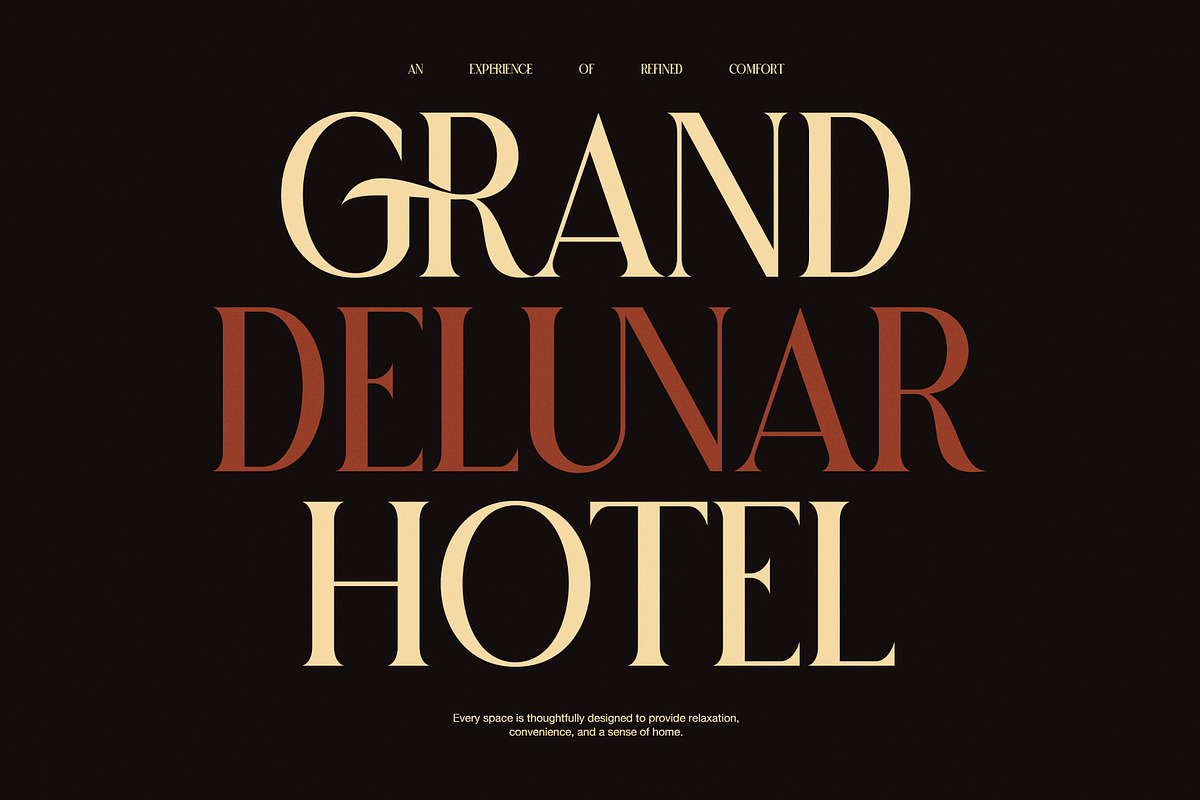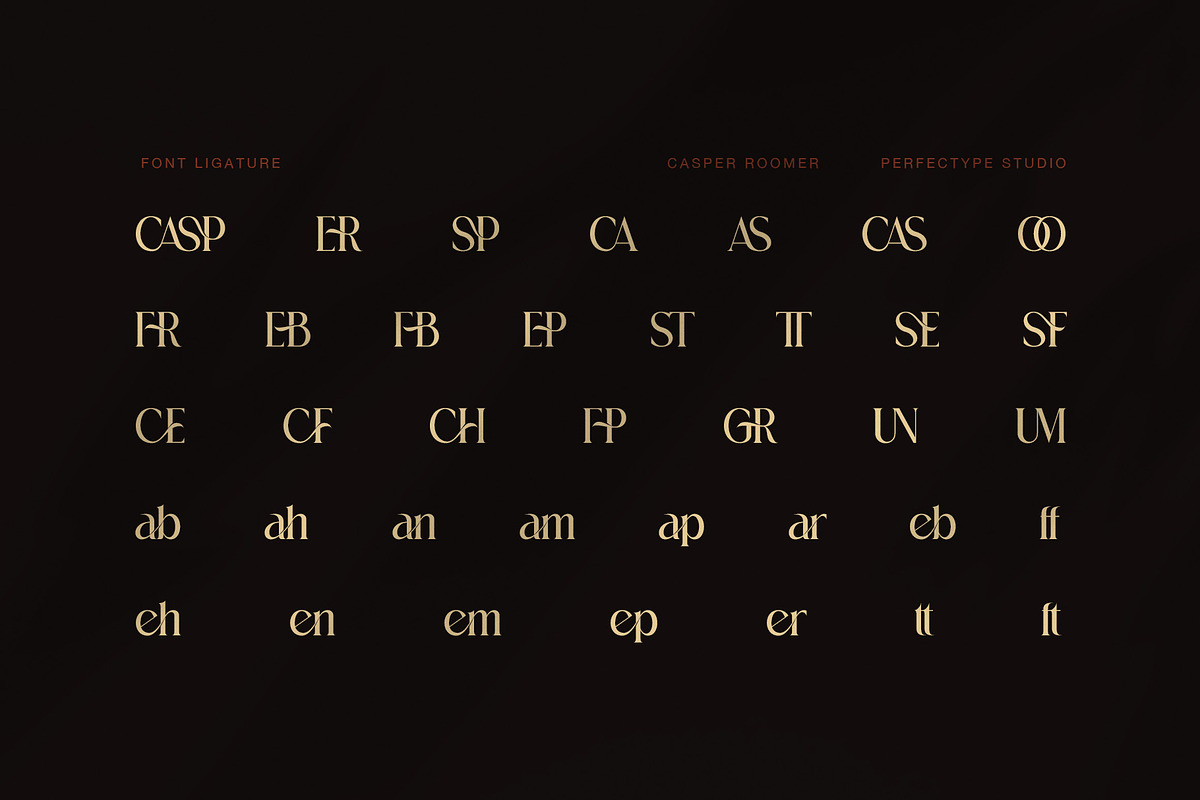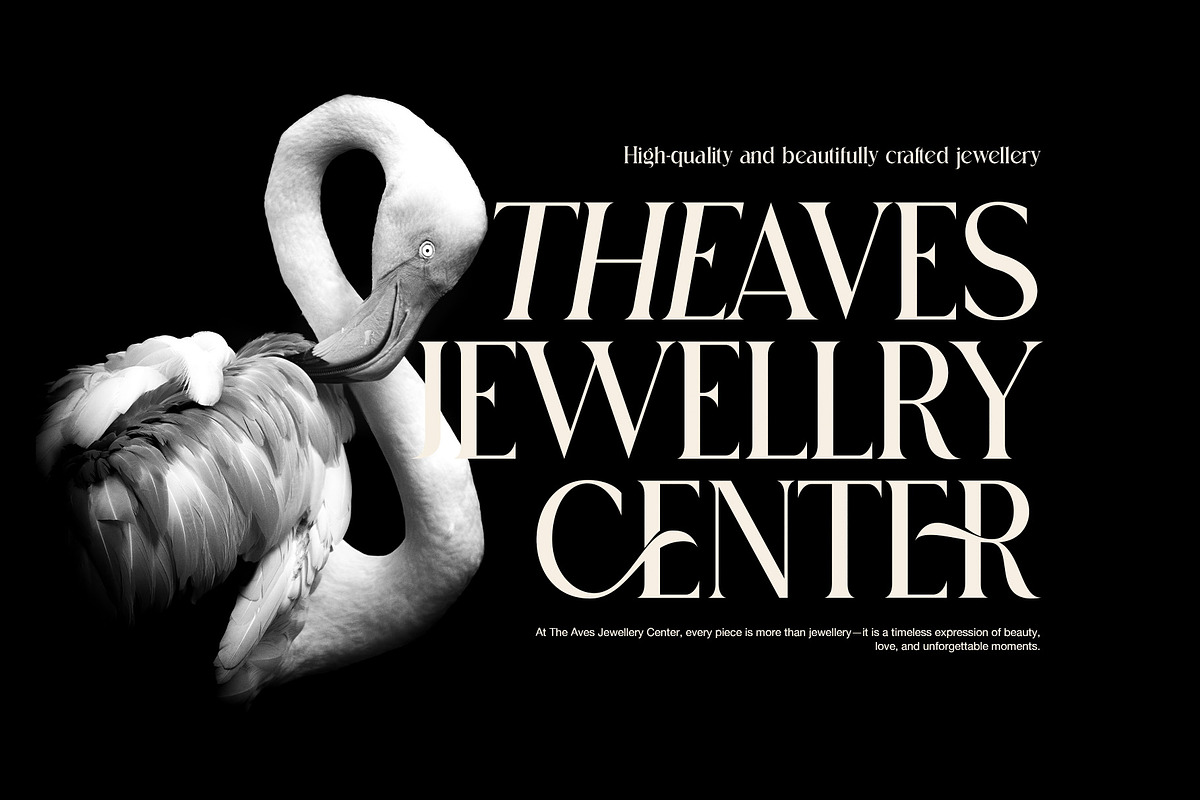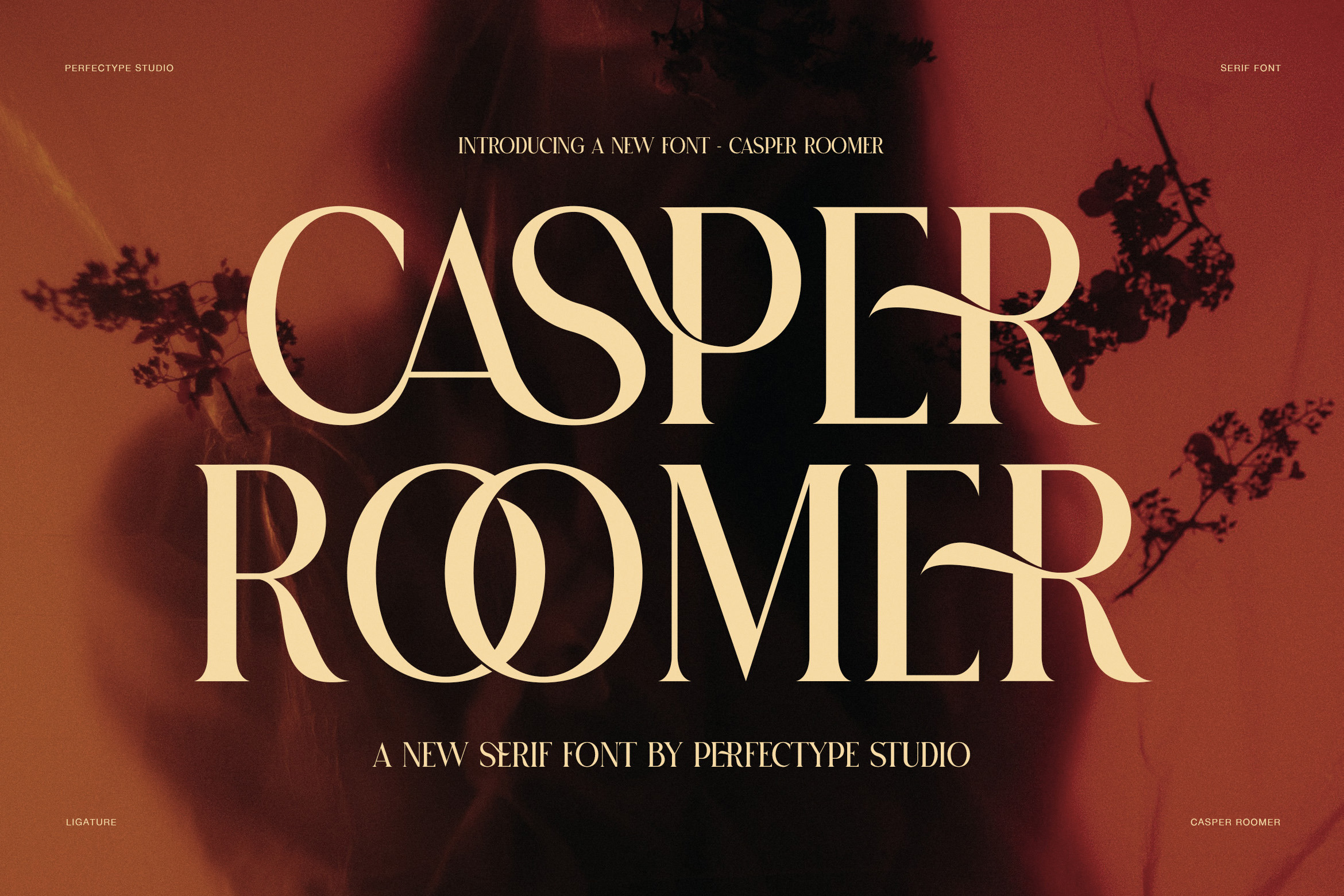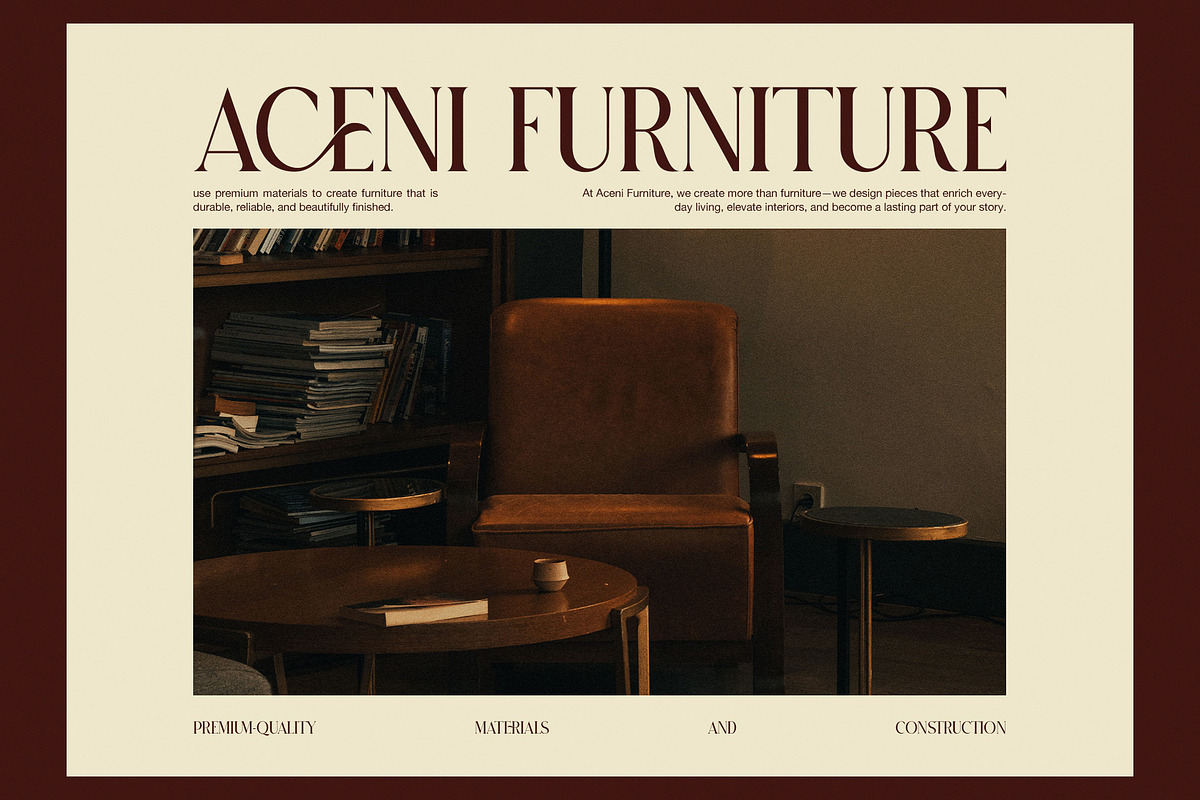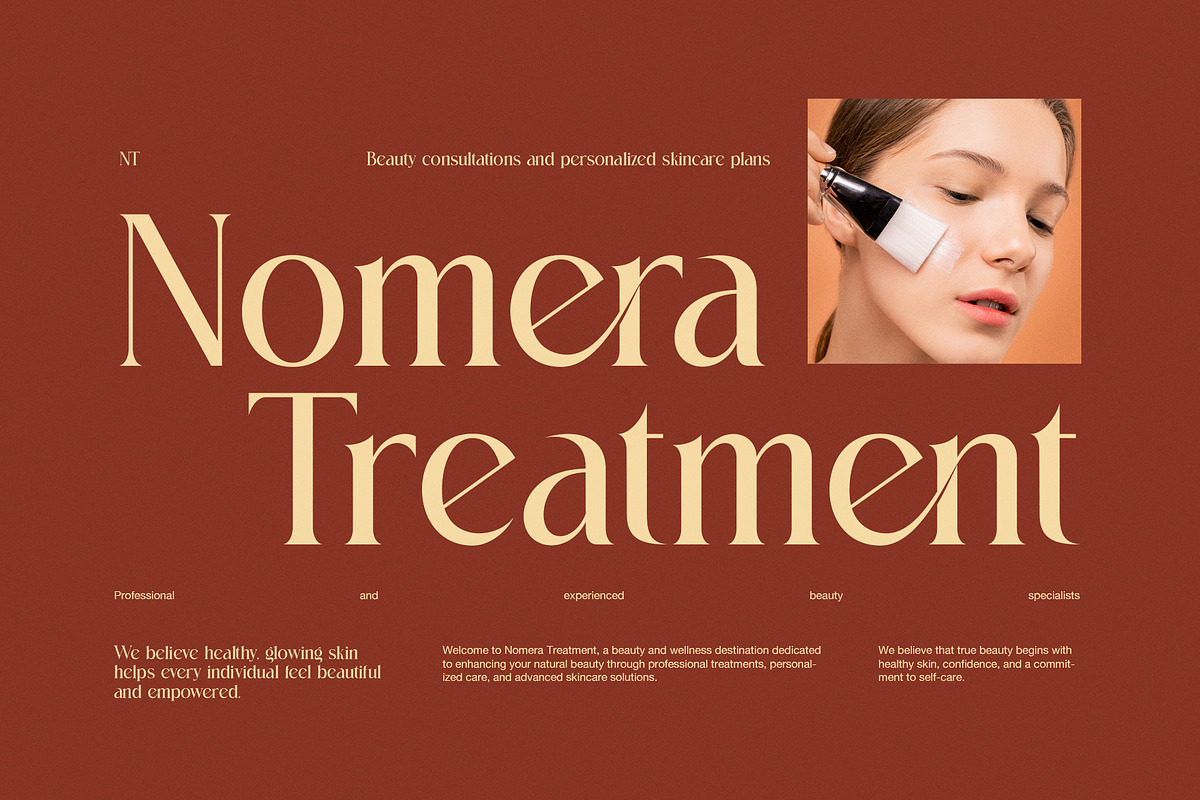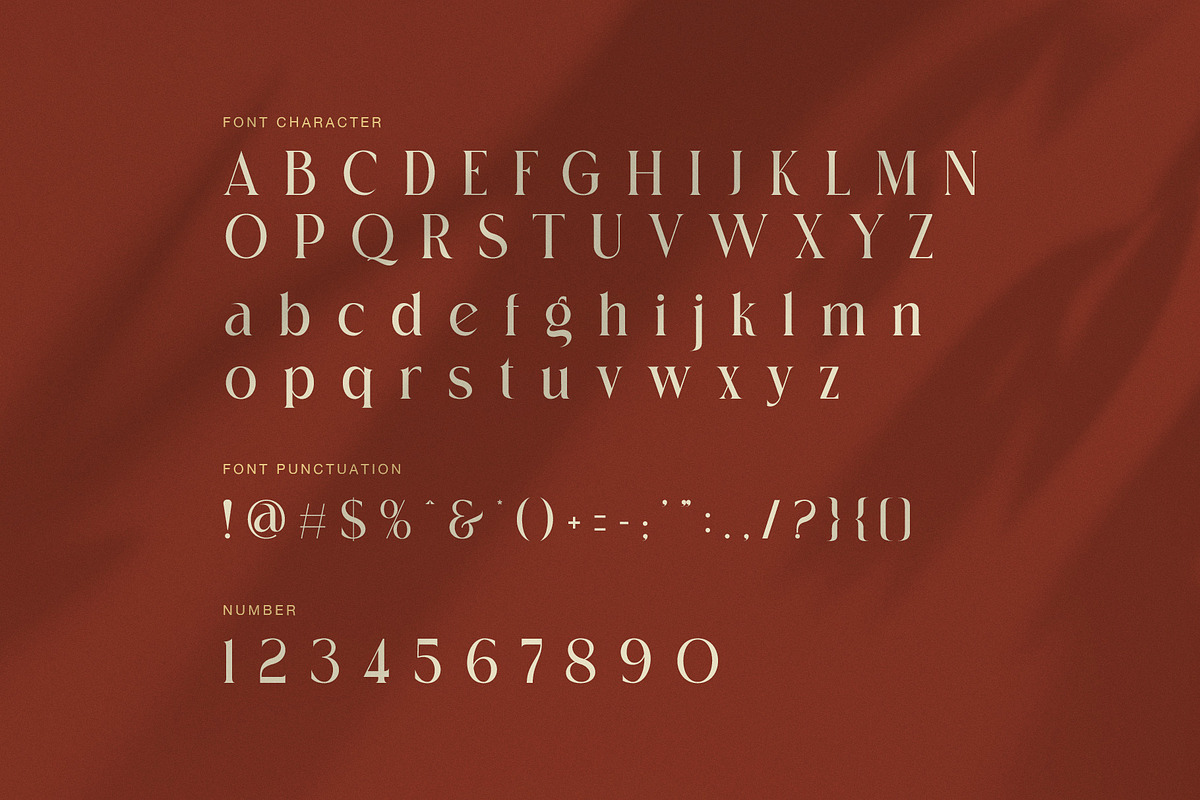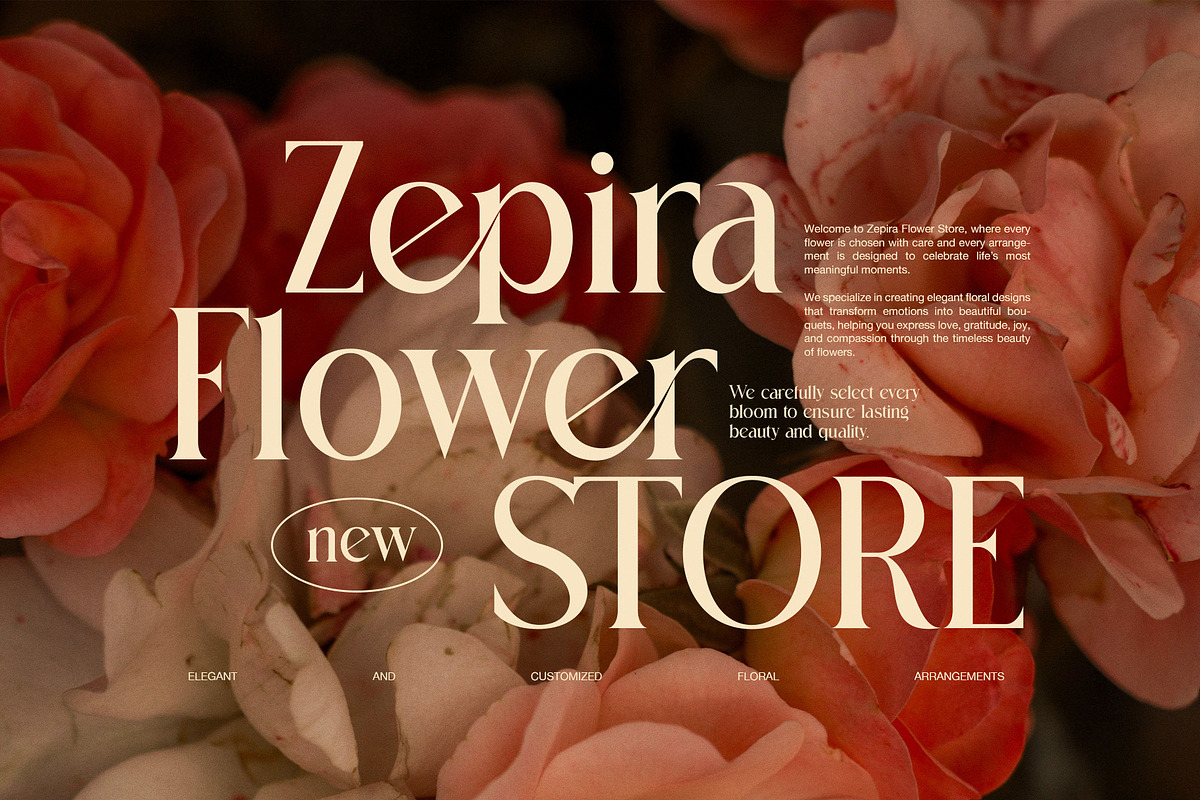
Casper Roomer Elegant Serif Font
Casper Roomer is an elegant serif font created for bold, refined, and memorable display work. Its tall letterforms, strong contrast, and clean shapes give every word a polished fashion look. At the same time, its smooth curves add warmth, making the style feel rich without looking too formal.
The most notable detail is the set of stylish ligatures. These letter pairs join selected characters in a neat and artistic way. Therefore, designers can create custom-looking headlines, logos, and brand names with less effort. The ligatures are especially useful for short words and large titles, where small details can make a big visual difference.
Casper Roomer also has a strong high-contrast serif style. Thick strokes bring weight, while fine lines create a light and graceful feel. Because of this balance, the font works well in both dark and light layouts. Moreover, its uppercase letters have a confident presence, while the lowercase characters bring a softer flow.
Ideal for many creative projects:
Luxury hotel and hospitality branding
Fashion labels and editorial layouts
Beauty and skincare campaigns
Jewelry and perfume packaging
Wedding invitations and stationery
Boutique logos and product labels
Art, photo, and creative studio branding
Restaurant menus and premium print work
Social media posts and campaign graphics
Magazine covers, posters, and title designs
In addition, Casper Roomer includes uppercase and lowercase letters, numbers, punctuation, and decorative ligatures. As a result, it gives designers enough range for many display projects. You can keep the main text clean, or you can add ligatures when a more special look is needed.
For example, a luxury logo can use the standard letters for a clear base and then add a ligature to create a custom touch. Likewise, a fashion headline can use the tall capitals to build a strong first impression. Meanwhile, the fine details remain clear when the font is used at a large size.
Overall, Casper Roomer is a versatile choice for designers who want an elegant serif font with a luxury feel. It blends classic serif roots with modern fashion style. Therefore, it suits brands that need a polished, artistic, and confident visual voice.